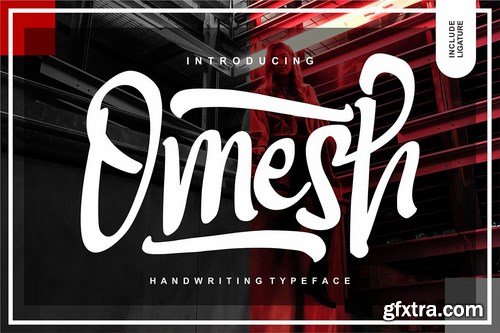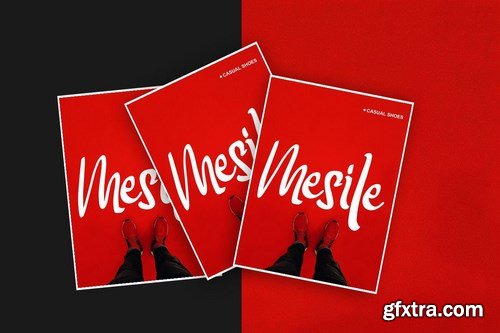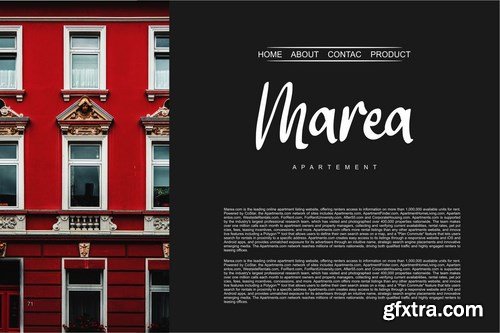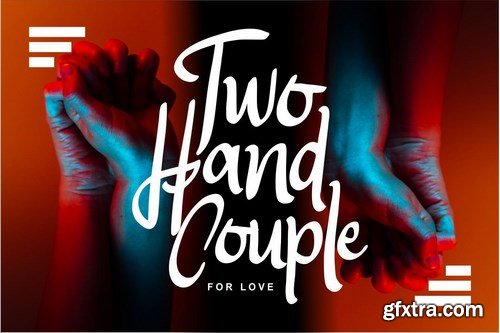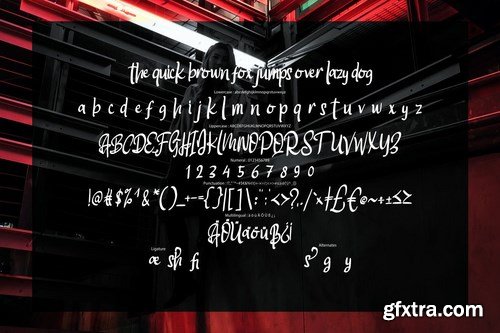
**Omesh Handwriting Typeface - is a new font that is authentic and suitable for many of your visual needs, like for invitation, greeting cards, branding materials, business cards, quotes, posters, and more!